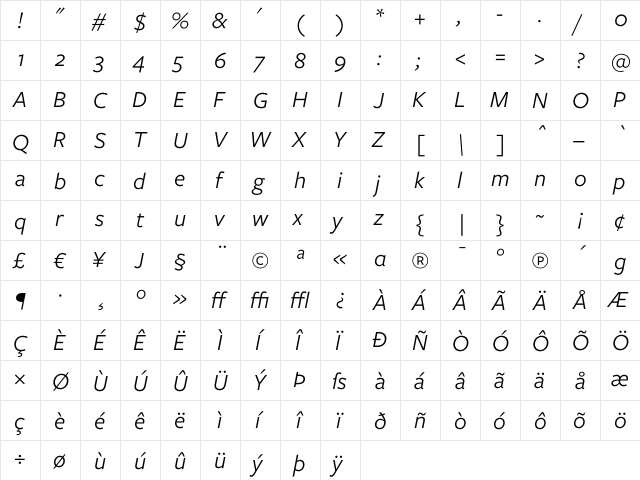
Freight Sans Book Italic
| Foundry | Joshua Darden & Phil's Fonts, Inc |
| Designer | Joshua Darden |
Design Context for Freight Typeface
Freight is a composed and adaptable typeface that performs quietly and consistently across a wide range of design contexts. Its italic angle brings a sense of urgency and motion to the letterforms.
Pro Tip: Try Freight for annotation and caption copy alongside an upright companion — the contrast in angle creates a dynamic but ordered typographic system.